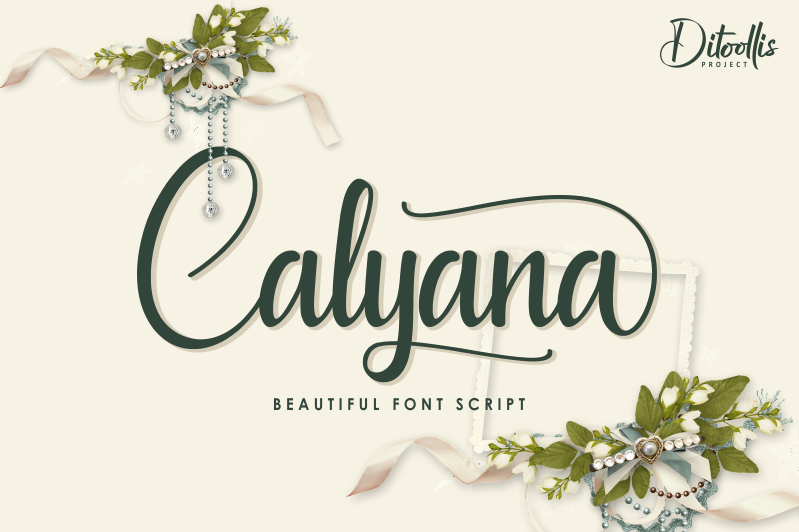
Calyana Font
Calyana Font is perfect for wellness spa branding, mindfulness meditation centers, yoga studio signage, holistic healing practices, natural beauty products, spiritual retreat materials, peaceful lifestyle blogs, and serene therapeutic service logos.
This font is exciting because it radiates tranquil harmony with graceful letterforms that capture the essence of inner peace and spiritual balance through every mindfully crafted curve and meditative detail. Calyana Font brings zen-like sophistication to designs through its flowing structure and calming styling that feels like typography breathed into existence during moments of deep meditation and spiritual clarity. The font's peaceful character makes it perfect for wellness brands and want to communicate serenity, healing, and the kind of profound tranquility that restores mind, body, and spirit to perfect harmony.
The Calyana Font family includes Regular, Bold, Light, Zen, Peaceful, and Harmony variants, each designed to capture different aspects of spiritual wellness while maintaining the font's characteristic serene appeal and meditative authenticity. The character set features flowing details that enhance the font's connection to mindfulness practices and spiritual awakening.
Whether you're creating branding for wellness enterprises, designing materials for spiritual gatherings, or developing content that needs to project inner peace, Calyana Font Free Download delivers the tranquil typography that guides audiences toward balance and healing through visual serenity and spiritual connection. This remarkable typeface transforms text into mantras of peace that resonate with the same gentle wisdom and healing energy found in sacred meditation spaces, ensuring your message communicates the profound calm and spiritual authenticity that helps people find their center and discover the beautiful peace that exists within every soul seeking harmony and wellness.